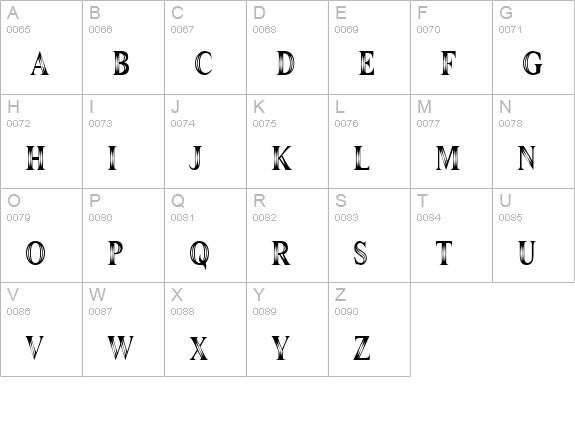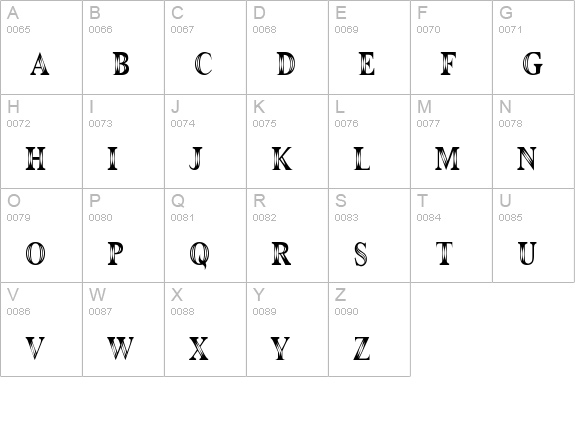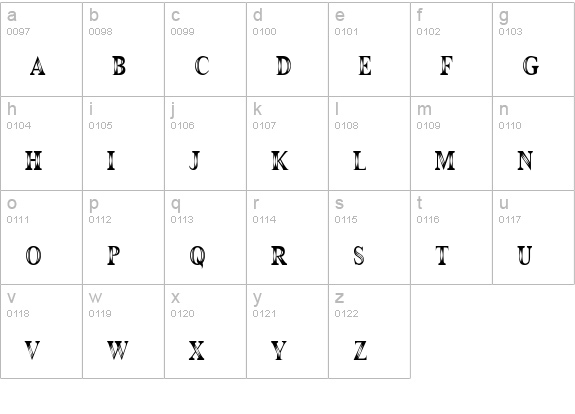
Maranallo High Font Details
Maranallo High font is a stunning display typeface that exudes elegance and sophistication. Its graceful curves and sharp edges create a harmonious balance, making it the perfect choice for projects that require a touch of class. This versatile font is ideal for a wide range of design applications, including logos, headlines, posters, and invitations. Whether you're working on a branding project or designing a beautiful wedding invitation, Maranallo High font will elevate your design and leave a lasting impression. One of the most remarkable aspects of Maranallo High font is that it is completely free. Yes, you read that right – you can download this exceptional font for free at FontsMarket.com. This means that you can add a touch of luxury to your projects without breaking the bank. With Maranallo High font, you'll have access to a world of possibilities. Its extensive character set includes uppercase letters, lowercase letters, numbers, and punctuation marks, allowing you to create stunning typographic compositions. The font also supports multiple languages, ensuring that you can communicate your message effectively across different cultures and regions. The attention to detail in Maranallo High font is truly remarkable. Each letter is meticulously crafted, resulting in a typeface that is not only visually appealing but also highly legible. Whether used at large or small sizes, the font retains its clarity and readability. So why wait? Download Maranallo High font now and unlock its full potential. Enhance your designs with this beautiful typeface and make a lasting impression. Remember, it's free and readily available at FontsMarket.com. Don't miss out on the opportunity to elevate your design projects with Maranallo High font – your audience will thank you for it.